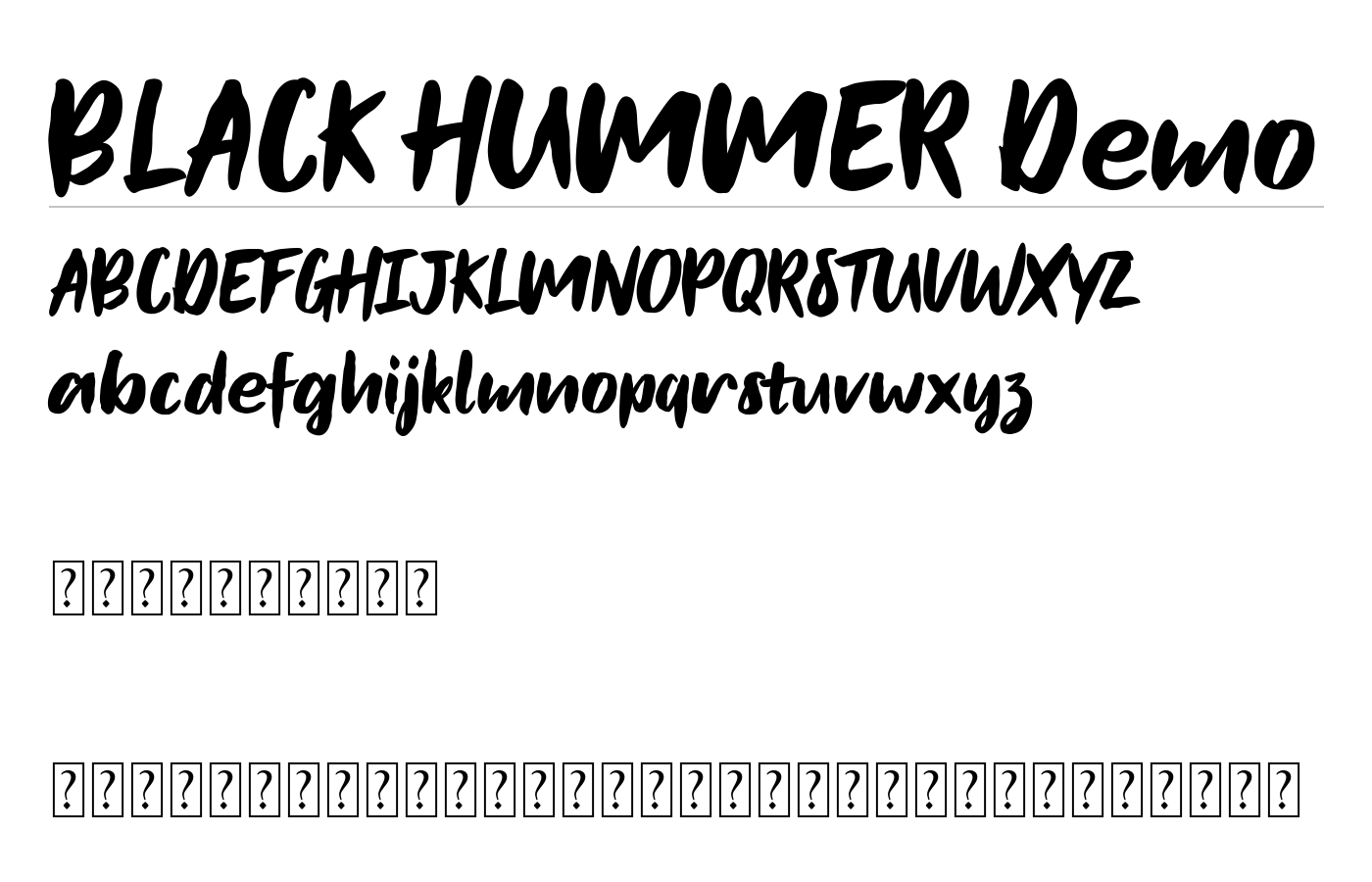
BLACK HUMMER Demo is a bold, hand-painted script font that exudes energy and spontaneity with its thick, brush-like strokes and slightly irregular letterforms. Its casual yet impactful style makes it perfect for creative projects, logos, and headlines where a lively, artistic vibe is desired. This font works well in settings that aim to convey fun, dynamism, and personality.
BLACK HUMMER Demo Font
About BLACK HUMMER Demo Font